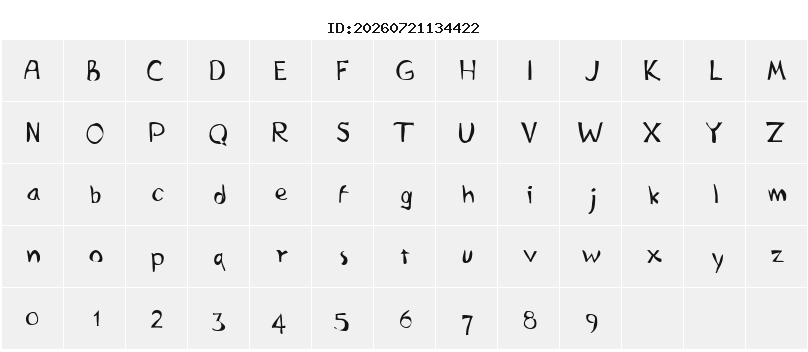
• Font Name: Ferrite
• Font Style: Brusque
• Font ID: Altsys Fontographer 4.0.4 Ferrite Brusque
• Full Font Name: Ferrite Brusque
• Version: Altsys Fontographer 4.0.4 2/9/95
• PostScript Name: FerriteBrusque
About Ferrite.ttf
Ferrite.ttf is a modern, elegant sans-serif font designed for ultimate readability and visual harmony. Perfect for branding, headlines, web design, and print materials.